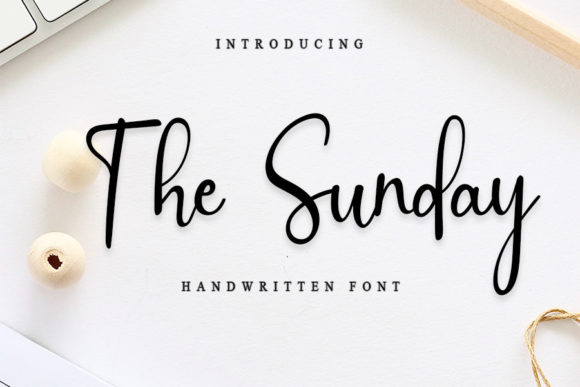
About The Sunday Font
The Sunday is a cool handwritten font that effortlessly blends a modern vibe with spotless form, drawing inspiration from classic calligraphy. With a balanced and varied style, this font is carefully designed to elevate the beauty of your projects, offering a versatile and visually appealing option for various design applications.
Its modern yet classic calligraphy-inspired design gives The Sunday a distinctive charm, making it suitable for a range of creative projects. The font strikes a perfect balance, not too thin and not too thick, ensuring a harmonious appearance that can enhance the aesthetics of your designs.
Whether you’re working on branding, logos, invitations, stationery, or any other creative endeavor, The Sunday brings a touch of coolness and contemporary flair. Its handwritten style adds a personal and authentic touch, contributing to the overall appeal of your projects.
The inclusion of PUA encoding is a notable feature of The Sunday, allowing easy access to a variety of amazing glyphs and ligatures. This feature enhances the font’s versatility, providing designers with the flexibility to experiment with unique character combinations and flourishes seamlessly.
In summary, The Sunday is more than just a font; it’s a cool and modern design asset that captures the essence of classic calligraphy. With PUA encoding, designers can effortlessly access its amazing glyphs and ligatures, making it a user-friendly option for creating visually stunning projects. Whether applied to branding or invitations, The Sunday brings a spotless and stylish form to your designs, enhancing their overall beauty.